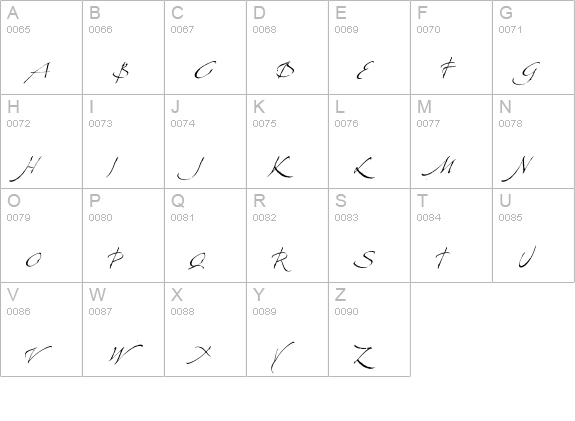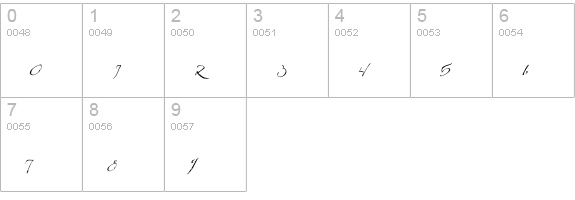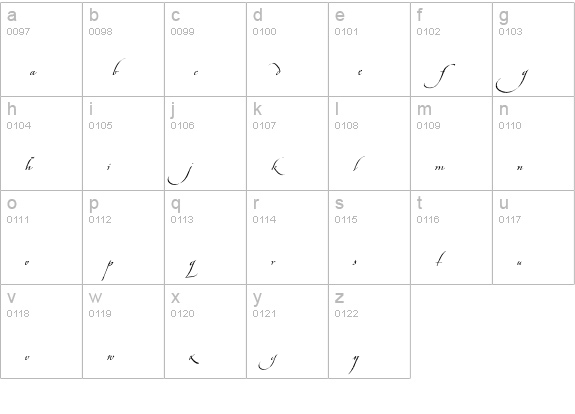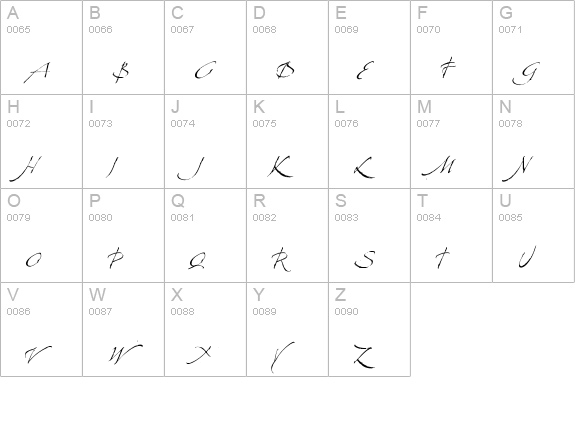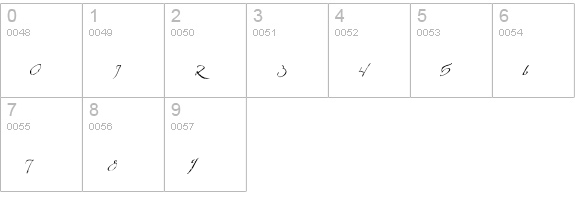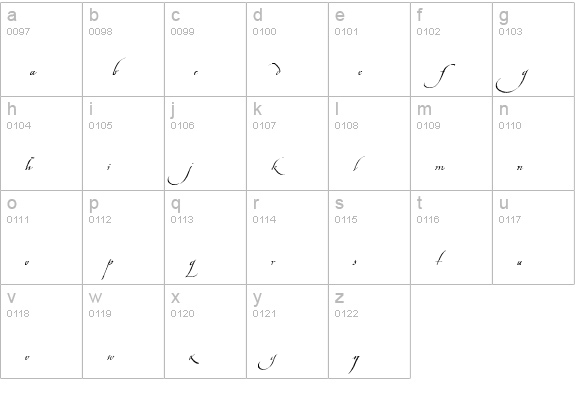
LaFigura Font Details
LaFigura font is a breathtaking typeface that combines elegance and modernity in perfect harmony. Its graceful curves and sharp edges create a unique visual experience that is both captivating and versatile. Whether used for headlines, titles, or body text, LaFigura font adds a touch of sophistication and style to any design project. One of the most remarkable aspects of LaFigura font is that it is available for free. Yes, you read that right! This exquisite font can be freely downloaded from FontsMarket.com, making it accessible to designers, creatives, and enthusiasts around the world. With its extensive character set, including uppercase and lowercase letters, numerals, punctuation marks, and special symbols, LaFigura font offers endless possibilities for creative expression. Its clean and legible design ensures readability in various sizes and contexts, making it suitable for both print and digital applications. LaFigura font's versatility extends beyond its design, as it effortlessly adapts to a wide range of themes and aesthetics. Whether you're working on a modern website, a sleek magazine layout, or an elegant branding project, this font will elevate your designs to new heights. In addition to its aesthetic appeal, LaFigura font also boasts impeccable technical qualities. Its well-hinted outlines ensure smooth rendering on screen and in print, while its optimized kerning and spacing guarantee optimal readability. Download LaFigura font for free today and unlock a world of design possibilities. Let this exquisite typeface inspire your creativity and bring your projects to life. Visit FontsMarket.com now to get your hands on this incredible font and take your designs to the next level.